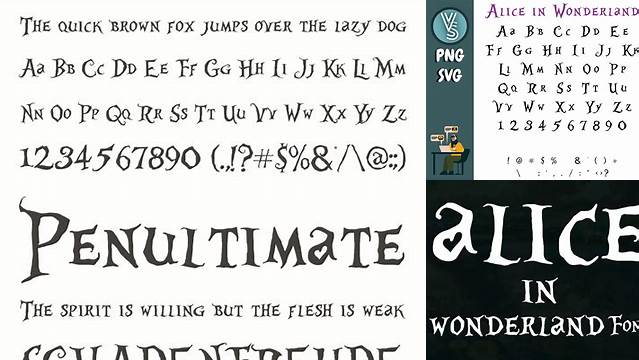
Alice In Wonderland Font Generator: Free & Magical!
Hey guys! Ever wanted to add a touch of Wonderland to your projects? Well, you're in luck! This article dives deep into the whimsical world of Alice in Wonderland fonts and how you can generate them for free. Get ready to make your text as enchanting as a Mad Hatter's tea party!
What is Alice in Wonderland Font?
First things first, let's talk about what we actually mean by an Alice in Wonderland font. It's not a single, universally defined typeface. Instead, it's more about capturing the feeling of the story: whimsical, slightly quirky, and definitely magical. This can translate into fonts that are slightly irregular, playful, and evoke a sense of fantasy. These fonts often feature unique curves, flourishes, and a generally hand-drawn or slightly vintage feel. You know, something that looks like it could have been scrawled on a scroll by the White Rabbit himself! Many fonts aim to embody the Victorian era aesthetic, which provides the historical backdrop for Lewis Carroll's masterpiece. These fonts are often used for invitations, posters, book covers, and anything else where you want to add a touch of Wonderland charm. So, while there’s no official Alice font, the possibilities are endless!
Why Use an Alice in Wonderland Font?
Why should you bother using an Alice in Wonderland font? Well, imagine you’re throwing a themed party! Using a regular, boring font just wouldn’t cut it, would it? An Alice-inspired font instantly sets the mood, transporting your guests (or readers) into the magical world of Wonderland. It's perfect for invitations, decorations, or even just adding a whimsical touch to your personal projects. Think about creating a birthday invitation that looks like it came straight from the Queen of Hearts! Or designing a poster for a school play that captures the fantastical spirit of the story. Beyond events, these fonts are great for book covers, websites, and branding that wants to convey a sense of imagination and playfulness. Using the right Alice in Wonderland font can make your project stand out and capture attention in a unique and memorable way. It is a fantastic way to inject personality and creativity into otherwise mundane text.
Free Alice in Wonderland Font Generators: An Overview
Okay, let's get to the good stuff: free Alice in Wonderland font generators! These tools are your ticket to creating text that looks like it’s straight out of the rabbit hole. The beauty of these generators is that they're typically super easy to use. You just type in your text, choose a font style (or several!), and boom – you have custom text ready to use. However, it’s important to understand what these generators actually do. They usually don't create entirely new font files. Instead, they take your text and apply a pre-designed style that mimics the look of popular Alice in Wonderland-inspired fonts. This is perfect for creating headings, titles, or short snippets of text. You can then copy and paste the generated text into your designs or documents. So, while you won't be able to install a new font on your computer, you can still achieve that whimsical Wonderland look with ease and, most importantly, for free! Remember to check the usage rights of the generated images, especially for commercial purposes.
Top Websites for Generating Alice Fonts
So, where can you find these amazing Alice in Wonderland font generators online? There are several websites that offer this service, each with its own selection of styles and features. Many sites provide a simple interface where you can type in your text and instantly see it transformed into various Alice-themed fonts. Some popular options include sites that specialize in fancy text generators or those with a broader range of font styles. Be sure to browse through different websites to find the fonts that best match your vision. A good strategy is to try a few different phrases or words to see how each font handles various letter combinations and lengths. Additionally, some sites might offer customization options, such as adjusting the size, color, or adding shadows. While the specific websites may change over time, a quick search for "free fancy text generator" or "Alice in Wonderland font generator" should lead you to a plethora of options. Just remember to double-check the website's terms of service before using the generated text in your projects!
Creating Your Own Alice in Wonderland Font
If you're feeling particularly creative, you might even consider creating your own Alice in Wonderland font! This is a more advanced project, but it can be incredibly rewarding. Start by researching different Alice-themed fonts to get inspiration. Pay attention to the details: the curves, the flourishes, the overall style. Then, you can use font design software to create each letter individually. There are many free and paid options available, such as FontForge (free) or Glyphs (paid). Creating a font from scratch takes time and patience, but the result will be a unique and personalized typeface that truly captures the spirit of Wonderland. Alternatively, you could start with an existing font and modify it to fit your vision. This is a great way to learn the basics of font design without having to create everything from the ground up. And who knows, maybe your font will become the next big thing in the Wonderland-inspired design world!
Choosing the right Alice in Wonderland font can be tricky, guys, because there are so many fantastic options! Start by considering the overall mood you want to create. Are you aiming for whimsical and playful, or slightly more gothic and mysterious? A playful font might be perfect for a children's party, while a more gothic font could be ideal for a Halloween-themed event. Think about the specific project you're working on. A font that looks great on a poster might not be as legible in a smaller text size, such as on a business card. Consider the legibility of the font. While Alice-themed fonts are often decorative, you still want people to be able to read your text! Test your font choice with different words and phrases to make sure it's clear and easy to understand. Don't be afraid to experiment and try out different combinations until you find the perfect fit. And remember, there are no hard and fast rules – the best font is the one that you love and that effectively communicates your message!
Font Pairing with Alice in Wonderland Fonts
One often overlooked aspect of using Alice in Wonderland fonts is font pairing. Unless your project consists of a single word or short phrase, you'll likely need to combine your Alice-inspired font with another typeface for body text. The key is to choose a font that complements the whimsical nature of your main font without overpowering it. A good strategy is to pair a decorative Alice font with a clean and simple sans-serif font. This creates a visual contrast that is both eye-catching and easy to read. Alternatively, you could use a classic serif font, such as Garamond or Times New Roman, for a more traditional look. Avoid pairing your Alice font with another overly decorative or script font, as this can create a cluttered and confusing design. Experiment with different combinations and see what works best for your specific project. Online tools can also help you find suitable font pairings by suggesting fonts that complement each other visually. Ultimately, the goal is to create a harmonious and balanced design that is both visually appealing and easy to read.
Using Alice Fonts in Graphic Design
Incorporating Alice in Wonderland fonts into your graphic design projects can add a touch of magic and whimsy. When using these fonts, consider the overall aesthetic of your design and ensure the font complements the other elements. Using Alice fonts for headings and titles can draw attention and set the tone for your design. For body text, it’s best to use a more legible font to ensure readability. Experiment with different sizes and weights of the Alice font to create visual interest and hierarchy. In invitations, posters, and book covers, these fonts can instantly transport the viewer to the world of Wonderland. However, be mindful of overusing the font, as it can become overwhelming if used excessively. Balance is key: use the Alice font strategically to highlight key information and add a touch of fantasy, while ensuring the overall design remains clean and professional. Also, consider the color palette and imagery used in your design. Pairing the Alice font with vibrant and whimsical illustrations can enhance the magical feel, while using muted colors can create a more vintage and sophisticated look.
Alice Font for Word Documents
Adding an Alice in Wonderland font to your Word documents can make your text stand out, especially for creative projects or themed assignments. If you have the font file, simply install it on your computer, and it will then appear in your font list in Word. If you are using a font generator, copy the generated text and paste it into your Word document. Be aware that the formatting may not always transfer perfectly, so you might need to adjust the size, spacing, and other attributes. Using Alice fonts for headings or titles can give your document a unique and playful touch. However, for the body of your document, it's best to stick to a more standard and readable font to ensure clarity. Consider using the Alice font for quotes or special sections to highlight them. When using the font, be sure to check the overall appearance of your document to ensure that the font size and style are appropriate for your content. You can also use Word’s formatting options to customize the font further, such as adding shadows or outlines. Overall, using an Alice font can add a creative flair to your Word documents, making them more engaging and visually appealing.
Mobile Apps for Alice Font Generation
For those who prefer creating on the go, there are numerous mobile apps available for Alice in Wonderland font generation. These apps allow you to create stylized text directly from your smartphone or tablet. Many of these apps feature a variety of Alice-themed fonts that you can use to add a touch of whimsy to your social media posts, messages, or design projects. Using these apps is usually straightforward: you type in your text, select your desired font style, and then copy and paste the generated text into your app of choice. Some apps also offer additional customization options, such as changing the font size, color, and adding effects. These mobile font generators are perfect for creating eye-catching content for Instagram, Facebook, and other social platforms. They’re also great for designing invitations, cards, or posters on the fly. When choosing a mobile app, read reviews to ensure it's reliable and offers a good selection of fonts. Also, check the app's permissions to ensure it's not requesting unnecessary access to your device. Overall, mobile apps provide a convenient way to generate Alice fonts wherever you are, making your mobile creations more unique and engaging.
Alice Font for Social Media
Using an Alice in Wonderland font on social media can make your posts stand out and capture the attention of your followers. Whether you're creating Instagram stories, Facebook posts, or Twitter updates, adding a touch of Wonderland can add a playful and whimsical element to your content. Use Alice fonts for headings or quotes in your social media graphics to draw the eye and convey a sense of fantasy. When posting text-based updates, you can use font generator tools to convert your text into Alice-themed styles before copying and pasting it into your post. Be mindful of readability; while the Alice font is visually appealing, it should not compromise the clarity of your message. Use it sparingly for emphasis rather than for entire paragraphs of text. Consider pairing the Alice font with other visual elements, such as Wonderland-themed images or GIFs, to enhance the overall theme. Also, be aware of the tone and context of your social media content. The Alice font is well-suited for creative or light-hearted posts but may not be appropriate for more serious or professional topics. By using the Alice font strategically, you can add a unique and engaging touch to your social media presence, making your posts more memorable and shareable.
Font Size and Readability
When working with Alice in Wonderland fonts, it's essential to consider font size and readability. While these fonts are often decorative and whimsical, they can sometimes be challenging to read, especially in smaller sizes. Choose a font size that ensures your text is legible, even when viewed on different devices or screens. For body text, it's generally best to use a larger font size to improve readability. For headings and titles, you can experiment with different sizes to create visual hierarchy, but always prioritize clarity. Check how the Alice font looks in different contexts, such as on a website, in a document, or on social media, to ensure it remains readable across various platforms. Be mindful of the spacing between letters and lines, as tight spacing can make the text appear cluttered and difficult to read. Adjust the spacing as needed to improve the overall readability of your content. Consider the background color and contrast: using a dark Alice font on a light background (or vice versa) can improve visibility. By paying attention to font size and readability, you can ensure that your Alice-themed text is both visually appealing and easy to understand.
Commercial Use of Alice Fonts
If you plan to use Alice in Wonderland fonts for commercial purposes, it's crucial to understand the licensing and usage rights associated with each font. Many Alice-themed fonts available online are free for personal use but may require a commercial license for business-related projects. Before using a font in your branding, marketing materials, or products, check the font's license agreement to ensure you comply with its terms. Some font creators offer different licensing options, such as a standard license that covers basic commercial use or an extended license for more extensive applications. Using a font without the proper license can result in legal issues, so it's essential to do your research and obtain the necessary permissions. If you're unsure about the licensing terms, contact the font creator directly to clarify any questions. Consider purchasing commercial licenses from reputable font foundries to ensure you have the legal rights to use the fonts in your projects. By being diligent about licensing, you can avoid potential copyright infringement and protect your business. Always keep records of your font licenses for future reference and verification.
Where to Find Free Alice Fonts
Finding free Alice in Wonderland fonts is easier than you might think! Many websites offer a wide variety of Alice-themed fonts that you can download and use for personal projects. Reputable font websites often have sections dedicated to free fonts, where you can browse and download fonts that capture the whimsical spirit of Wonderland. When downloading free fonts, be sure to check the licensing terms to ensure they are suitable for your intended use. Some fonts may be free for personal use but require a commercial license for business-related projects. Always download fonts from trusted sources to avoid downloading potentially harmful files or malware. Look for websites that offer font previews, allowing you to see how the font looks before downloading it. Additionally, consider joining online design communities or forums, where users often share their favorite free font resources. These communities can provide valuable recommendations and tips for finding high-quality Alice fonts. By exploring these resources, you can discover a wealth of free Alice fonts to enhance your creative projects.
Customizing Alice Fonts
Customizing Alice in Wonderland fonts allows you to create a unique and personalized look for your projects. While you can use font generators to create stylized text, you can also customize existing Alice fonts to further tailor them to your needs. Using graphic design software, such as Adobe Illustrator or Photoshop, you can modify the individual characters of a font, adjusting their size, shape, and spacing. You can also add decorative elements, such as swirls, flourishes, or shadows, to enhance the font's visual appeal. Experiment with different colors and gradients to create a more vibrant and eye-catching design. Consider adding textures or patterns to the font to give it a more tactile and dimensional appearance. If you're skilled in font design, you can even create your own variations of Alice fonts, adding your personal touch to each character. Customizing fonts can be a time-consuming process, but it allows you to create truly unique and memorable designs. By taking the time to customize your Alice fonts, you can ensure they perfectly complement the overall aesthetic of your project.
The Psychology of Font Choice
The psychology of font choice plays a significant role in how your message is perceived. When choosing an Alice in Wonderland font, consider the emotions and associations it evokes. Alice-themed fonts typically convey a sense of whimsy, fantasy, and playfulness. Using these fonts can create a light-hearted and imaginative atmosphere, making them well-suited for creative projects, children's events, or themed designs. However, it's essential to use Alice fonts appropriately, as they may not be suitable for more serious or professional contexts. The choice of font can influence how your audience interprets your message, so select fonts that align with your brand's identity and the overall tone of your content. Consider the cultural associations of different fonts: certain fonts may evoke specific time periods or styles. In the case of Alice fonts, they often evoke a Victorian or vintage aesthetic. By understanding the psychology of font choice, you can make informed decisions that enhance the impact of your designs and communications.
Font Combinations and Harmony
Creating font combinations that harmonize well is crucial for achieving a visually appealing and balanced design. When using an Alice in Wonderland font, consider pairing it with a complementary font that enhances its whimsical qualities without overpowering it. A good strategy is to combine a decorative Alice font with a simple and clean sans-serif font for body text. This creates a visual contrast that is both eye-catching and easy to read. Avoid pairing your Alice font with another overly decorative or script font, as this can create a cluttered and confusing design. Experiment with different font sizes and weights to create visual hierarchy and emphasize key information. Consider the overall aesthetic of your design and choose font combinations that align with its style and tone. Online resources and tools can help you find suitable font pairings by suggesting fonts that complement each other visually. Aim for a harmonious and balanced design that is both visually appealing and easy to read. By carefully selecting font combinations, you can create designs that are both creative and effective.
Best Alice in Wonderland Font Styles
When it comes to Alice in Wonderland font styles, there's a wide variety to choose from, each with its unique characteristics and appeal. Some popular styles include ornate Victorian-inspired fonts, whimsical script fonts, and playful cartoon fonts. Victorian fonts often feature intricate details and elegant curves, capturing the historical context of the Alice in Wonderland story. Script fonts evoke a sense of handwritten charm and whimsy, making them well-suited for invitations or creative projects. Cartoon fonts are more playful and light-hearted, perfect for children's events or designs that aim to convey a sense of fun. Consider the overall tone and style of your project when selecting an Alice font style. If you're aiming for a more traditional and elegant look, a Victorian font may be the best choice. If you want to create a sense of whimsy and playfulness, a script or cartoon font may be more appropriate. Experiment with different styles to find the one that best complements your design and captures the magical spirit of Wonderland. By exploring the different Alice font styles, you can create designs that are both visually appealing and thematically consistent.
How to Install Alice Fonts
Installing Alice in Wonderland fonts on your computer is a straightforward process that allows you to use these fonts in various applications, such as word processors, graphic design software, and more. First, download the font file from a trusted source. Font files typically come in formats such as .ttf (TrueType Font) or .otf (OpenType Font). Once you have downloaded the font file, locate it on your computer. On Windows, right-click the font file and select "Install" from the context menu. This will install the font and make it available for use in your applications. On macOS, double-click the font file to open it in Font Book. Then, click the "Install Font" button to install the font. After installing the font, it should appear in the font list of your applications. If the font doesn't appear immediately, try restarting the application or your computer. When installing fonts, be sure to download them from reputable sources to avoid downloading potentially harmful files or malware. Also, check the licensing terms of the font to ensure you comply with its usage rights. By following these steps, you can easily install Alice fonts on your computer and use them to enhance your creative projects.
Alice Fonts for Branding
Using Alice in Wonderland fonts for branding can add a unique and memorable touch to your business. However, it's essential to use these fonts strategically and ensure they align with your brand's identity and values. Alice-themed fonts typically convey a sense of whimsy, fantasy, and creativity, making them well-suited for businesses in industries such as entertainment, arts, or children's products. Consider using Alice fonts for your logo, website headings, or marketing materials to create a distinctive and eye-catching brand image. However, avoid overusing the font, as it can become overwhelming or appear unprofessional. Pair your Alice font with a more neutral and readable font for body text to ensure clarity and legibility. Be mindful of your target audience and ensure the Alice font resonates with their preferences and expectations. Before using Alice fonts for branding, conduct market research to gauge how your target audience perceives these fonts. By using Alice fonts strategically, you can create a brand identity that is both memorable and aligned with your business goals.
Alice Font Generators for Beginners
If you're new to using Alice in Wonderland font generators, you'll find that they are user-friendly and straightforward to use. These tools allow you to create stylized text in Alice-themed fonts without requiring any design skills or software. Simply type your text into the generator, select your desired font style, and the tool will generate the stylized text for you. You can then copy and paste the generated text into your project. Most Alice font generators offer a variety of font styles to choose from, allowing you to experiment with different looks and find the one that best suits your needs. Some generators also offer customization options, such as changing the font size, color, or adding effects. When using a font generator, be sure to check the licensing terms of the generated text to ensure you comply with its usage rights. Also, be mindful of readability; while the Alice font is visually appealing, it should not compromise the clarity of your message. Use it sparingly for emphasis rather than for entire paragraphs of text. By following these tips, you can easily use Alice font generators to add a touch of whimsy and creativity to your projects.
Alice Font and Accessibility
When using Alice in Wonderland fonts, it's essential to consider accessibility to ensure that your content is readable and usable by everyone, including people with disabilities. While Alice-themed fonts are often decorative and visually appealing, they can sometimes be challenging to read, especially for people with visual impairments. Use a font size that is large enough to ensure readability for people with low vision. Avoid using overly ornate or complex fonts that may be difficult to decipher. Provide sufficient contrast between the font color and the background color to improve visibility. Use clear and concise language to ensure your message is easily understood. When using Alice fonts in digital content, ensure that the content is accessible to screen readers and other assistive technologies. Provide alternative text descriptions for images and other visual elements to ensure that people with visual impairments can access the information. By following these accessibility guidelines, you can ensure that your Alice-themed content is inclusive and usable by everyone.
Alice in Wonderland Font Styles for T-Shirts
Using Alice in Wonderland font styles for t-shirts can create unique and eye-catching designs that appeal to fans of the classic tale. When choosing a font style, consider the overall aesthetic you want to achieve. Victorian-inspired fonts can add a touch of elegance and nostalgia, while whimsical script fonts can create a playful and lighthearted look. Cartoon fonts are perfect for designs that aim to convey a sense of fun and whimsy. Experiment with different font colors and sizes to create visual interest and emphasize key words or phrases. Consider incorporating Alice in Wonderland-themed illustrations or graphics to enhance the overall design. Before printing your t-shirt, be sure to check the font's licensing terms to ensure you comply with its usage rights. Also, consider the fabric and printing method when choosing a font style, as certain fonts may not print well on certain materials. By following these tips, you can create Alice in Wonderland-themed t-shirts that are both stylish and memorable.
Combining Alice Fonts with Images
Combining Alice in Wonderland fonts with images can create visually stunning and engaging designs that capture the magical spirit of the story. When selecting images, consider the overall aesthetic you want to achieve. Illustrations from the original Alice in Wonderland book can add a touch of nostalgia and authenticity, while modern interpretations can create a fresh and contemporary look. Use images that complement the font style and color scheme to create a cohesive and harmonious design. Experiment with different image sizes and placements to create visual interest and emphasize key elements. Consider using transparent or semi-transparent images to create a layered effect. Be sure to credit the image source if you are using copyrighted images. When combining fonts and images, ensure that the text is readable and does not get lost in the background. Use a font color that contrasts well with the image to improve visibility. By following these tips, you can create Alice in Wonderland-themed designs that are both visually appealing and thematically consistent.
Alice Font Generators for E-books
Using Alice in Wonderland font generators for e-books can add a unique and whimsical touch to your digital publications. When designing an e-book, consider using Alice-themed fonts for headings, chapter titles, and other decorative elements to create a distinctive and eye-catching look. For body text, it's best to use a more readable and accessible font to ensure that your readers can easily follow the story. Use font generators to create stylized text that complements the overall tone and style of your e-book. Experiment with different font colors and sizes to create visual hierarchy and emphasize key elements. Be mindful of file size and compatibility when using Alice fonts in e-books, as certain fonts may not be supported by all e-readers or devices. Test your e-book on different devices and platforms to ensure that the fonts display correctly. Consider embedding the fonts in your e-book file to ensure that they are displayed consistently regardless of the reader's device or font settings. By following these tips, you can create Alice in Wonderland-themed e-books that are both visually appealing and accessible.
Creating Alice Font Based Logos
Creating logos based on Alice in Wonderland fonts can give your brand a unique and memorable identity, especially if your business aligns with themes of creativity, fantasy, or children's entertainment. When designing an Alice-themed logo, consider the overall message and image you want to convey. Choose a font style that reflects your brand's personality and values. Victorian fonts can add a touch of elegance and sophistication, while whimsical script fonts can create a playful and approachable look. Experiment with different font sizes, colors, and arrangements to create a visually appealing and balanced logo. Consider incorporating Alice in Wonderland-themed illustrations or graphics to enhance the logo's theme. Ensure that the logo is scalable and legible at different sizes, from business cards to website banners. Obtain the necessary licenses for the fonts and images used in your logo to avoid copyright issues. Consider hiring a professional graphic designer to create a custom Alice-themed logo that perfectly captures your brand's identity. By following these tips, you can create a logo that is both visually stunning and aligned with your business goals.
Alice in Wonderland Font Color Palette
Choosing the right color palette is essential when working with Alice in Wonderland fonts, as the colors can significantly impact the overall mood and aesthetic of your design. Consider using a color palette that reflects the whimsical and fantastical nature of the story. Pastel colors, such as light blues, pinks, and greens, can create a dreamy and ethereal atmosphere. Bold and vibrant colors, such as reds, purples, and yellows, can add a sense of playfulness and excitement. Consider using a color palette that is inspired by the illustrations from the original Alice in Wonderland book. Experiment with different color combinations to find the one that best complements your font style and design. Use colors to create visual hierarchy and emphasize key elements. Be mindful of color contrast to ensure that the text is readable and accessible. Consider the cultural associations of different colors and choose colors that align with your target audience's preferences and expectations. By carefully selecting your color palette, you can enhance the overall impact of your Alice in Wonderland-themed designs.
Trends in Alice Font Designs
Staying up-to-date with the latest trends in Alice in Wonderland font designs can help you create fresh and innovative projects that capture the essence of this timeless tale. Some current trends include incorporating hand-drawn elements, using vintage-inspired fonts, and experimenting with bold and unconventional color palettes. Hand-drawn fonts can add a personal and whimsical touch to your designs, while vintage fonts can evoke a sense of nostalgia and authenticity. Bold color palettes can create a modern and eye-catching look that sets your designs apart. Experiment with layering fonts and images to create depth and dimension. Consider incorporating interactive elements or animations to enhance the user experience. Follow design blogs and social media accounts to stay informed about the latest trends and inspiration. By staying current with the latest trends, you can create Alice in Wonderland-themed designs that are both visually stunning and relevant.
Alice Font and Web Design
Using Alice in Wonderland fonts in web design can create a unique and memorable online experience for your visitors. When incorporating Alice-themed fonts into your website, consider the overall design and branding of your site. Use the fonts sparingly for headings, titles, and other decorative elements to create visual interest without overwhelming the user. For body text, it's best to use a more readable and accessible font to ensure that your visitors can easily navigate and understand your content. Optimize the fonts for web use to ensure that they load quickly and display correctly on different devices and browsers. Consider using web-safe fonts or font embedding techniques to ensure that your fonts are displayed consistently across all platforms. Be mindful of accessibility guidelines and ensure that your website is usable by people with disabilities. Provide sufficient color contrast between the font and background to improve readability. By following these tips, you can create an Alice in Wonderland-themed website that is both visually appealing and user-friendly.
Mastering Alice Font Generation Techniques
Mastering Alice in Wonderland font generation techniques requires practice, experimentation, and a keen eye for design. Start by exploring different font generators and experimenting with their various features and options. Pay attention to the different font styles, colors, and effects that are available. Practice creating stylized text that complements the overall tone and style of your project. Experiment with different font combinations to create visual harmony and emphasis. Study the work of other designers who have successfully used Alice fonts in their projects. Learn from their techniques and adapt them to your own style. Seek feedback from other designers and incorporate their suggestions into your work. Stay up-to-date with the latest trends and technologies in font generation. By continuously learning and practicing, you can master the art of Alice in Wonderland font generation and create stunning designs that capture the magic of this beloved tale.